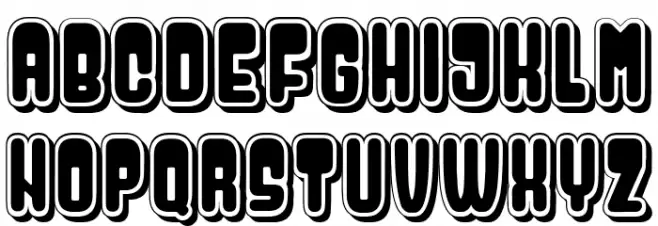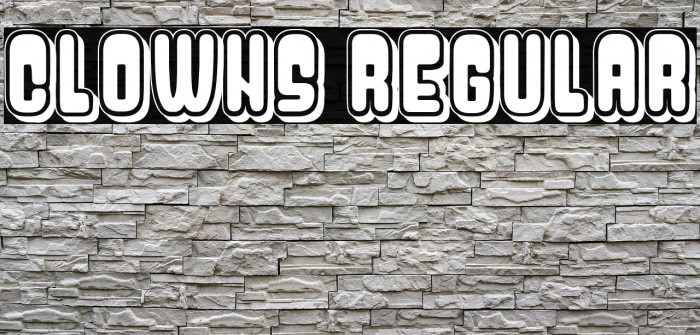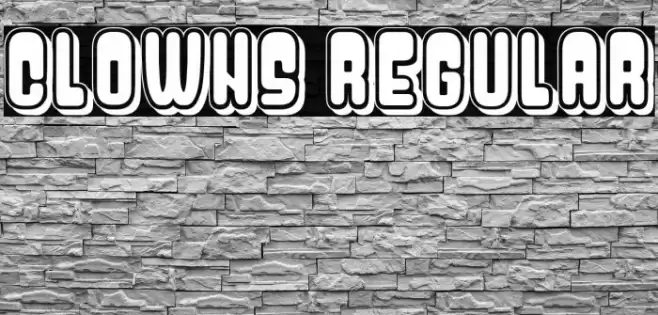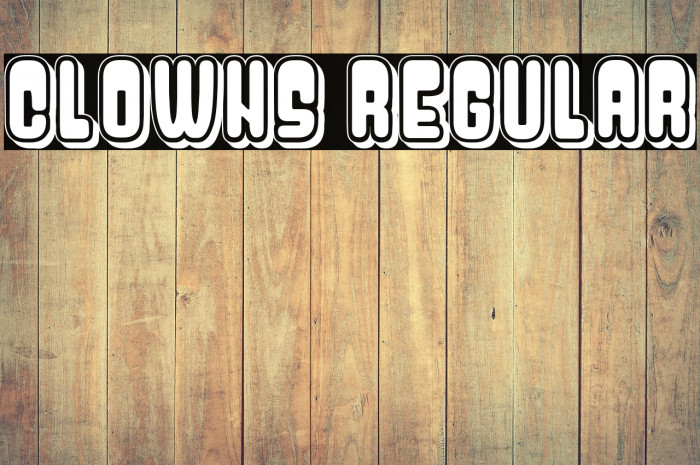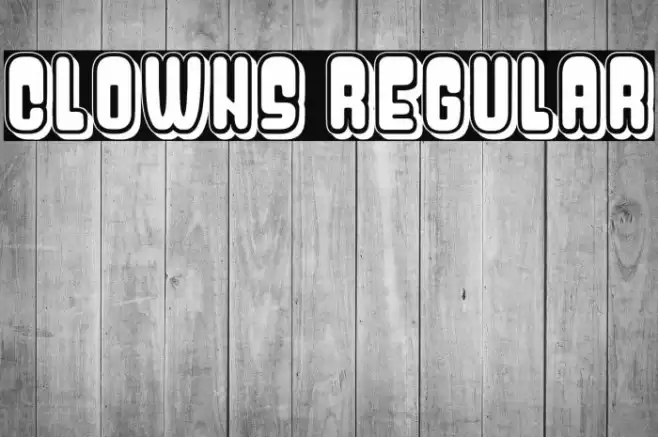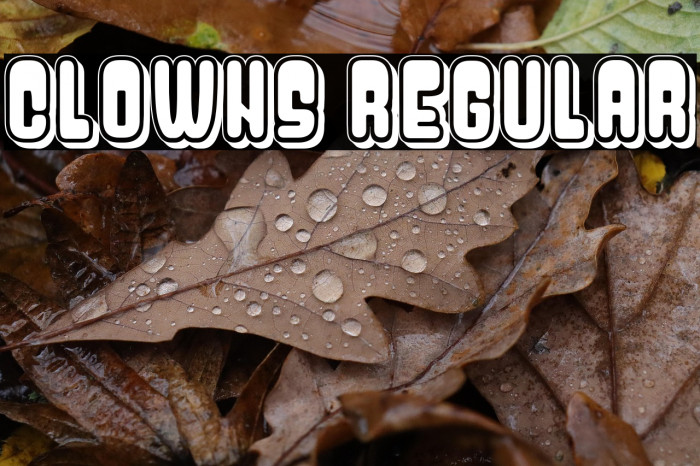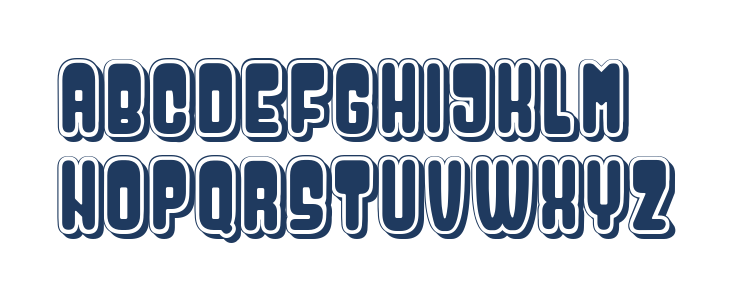
Clowns Regular Font
Clowns Regular Description
This font features bold, rounded characters with a playful and whimsical style. Each letter is outlined with a thick black border, creating a striking contrast against the white interior. The design is reminiscent of vintage circus or carnival themes, making it ideal for projects that require a fun and lively aesthetic. The characters are evenly spaced, and the uniformity in the design ensures readability while maintaining its decorative appeal. The font's unique style makes it suitable for eye-catching headlines or creative branding projects.
Overall StyleVintage
Proposed ProjectsIdeal for posters, event flyers, children's books, and branding for playful or entertainment-related businesses.